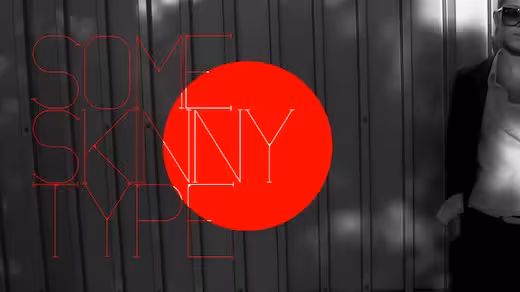
Nearly every designer shares a strong love for typography. Many will never become type designers, or even dedicated typographers, but you’d be hard-pressed to find a designer that didn’t lust after the details of gorgeous type treatments, display and text fonts.
Out of every genre hidden in the depths of typography, from black letter to grotesque, I have a soft spot for experimental typefaces. Luckily, so does designer Branislav S. Cirkovic, the creator of TypoFlat.
If you’ve ever longed for wild, abstracted letterforms, this site will feel like a playground. All of the typefaces come in various weights and varieties, flexibly packed into vector files for your own use. TypoFlat also has multiple sets of strange, yet aesthetically pleasing vector designs.
From the creator:
The idea is to have this free flow of creation where no clients or money are involved, just a pure passion for creation and form experimentation. Not every character, image or vector is perfect so please feel free to take full liberty and adjust it so it fits your needs, experiment and never forget to enjoy the process!
You might be wondering why Cirkovic decided to release the typefaces in vector format instead of a full-on font file. While he doesn’t offer us an explanation on his site, certain aspects like color and sometimes even texture can’t be translated into formats like .OTF. Also, the conversion process would simply take a lot more time.